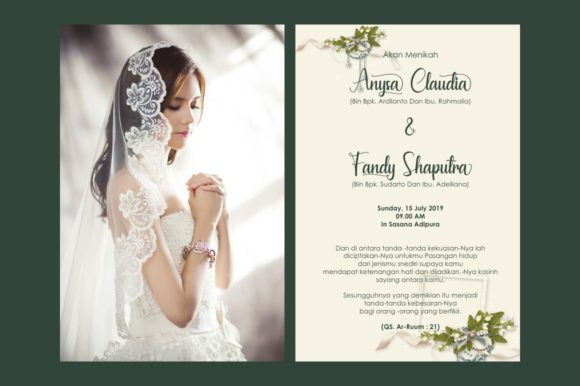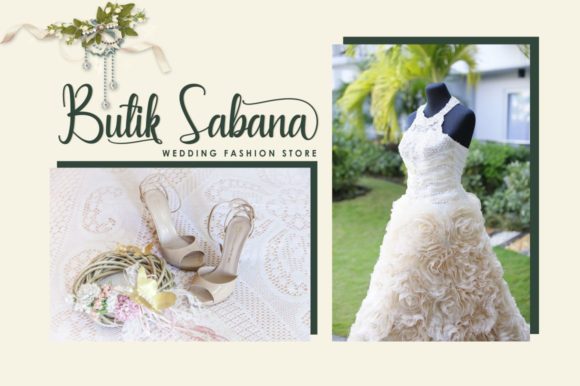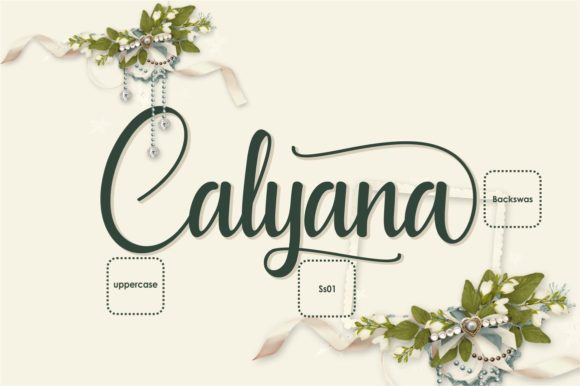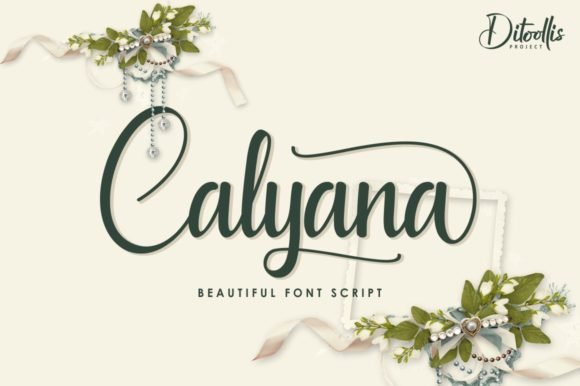
Introduction to Calyana Font
Calyana is a stunning script with authentic swashes.
Get inspired by this incredibly radiant typeface .
Why Choose Calyana Font?
Calyana Font offers exceptional quality and versatility, making it a valuable addition to your design toolkit. Whether you’re creating for personal projects or commercial use, Calyana Font delivers professional results.